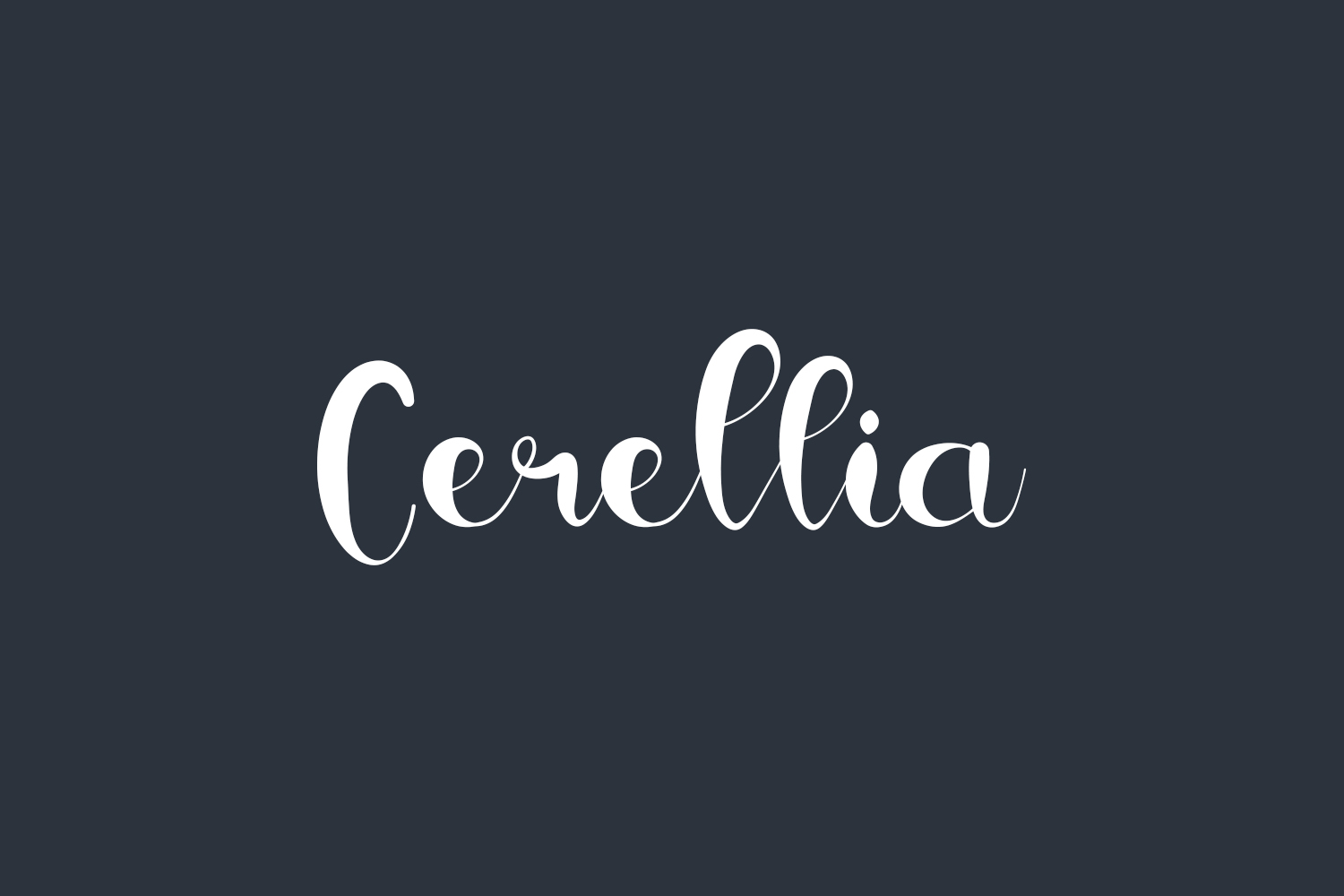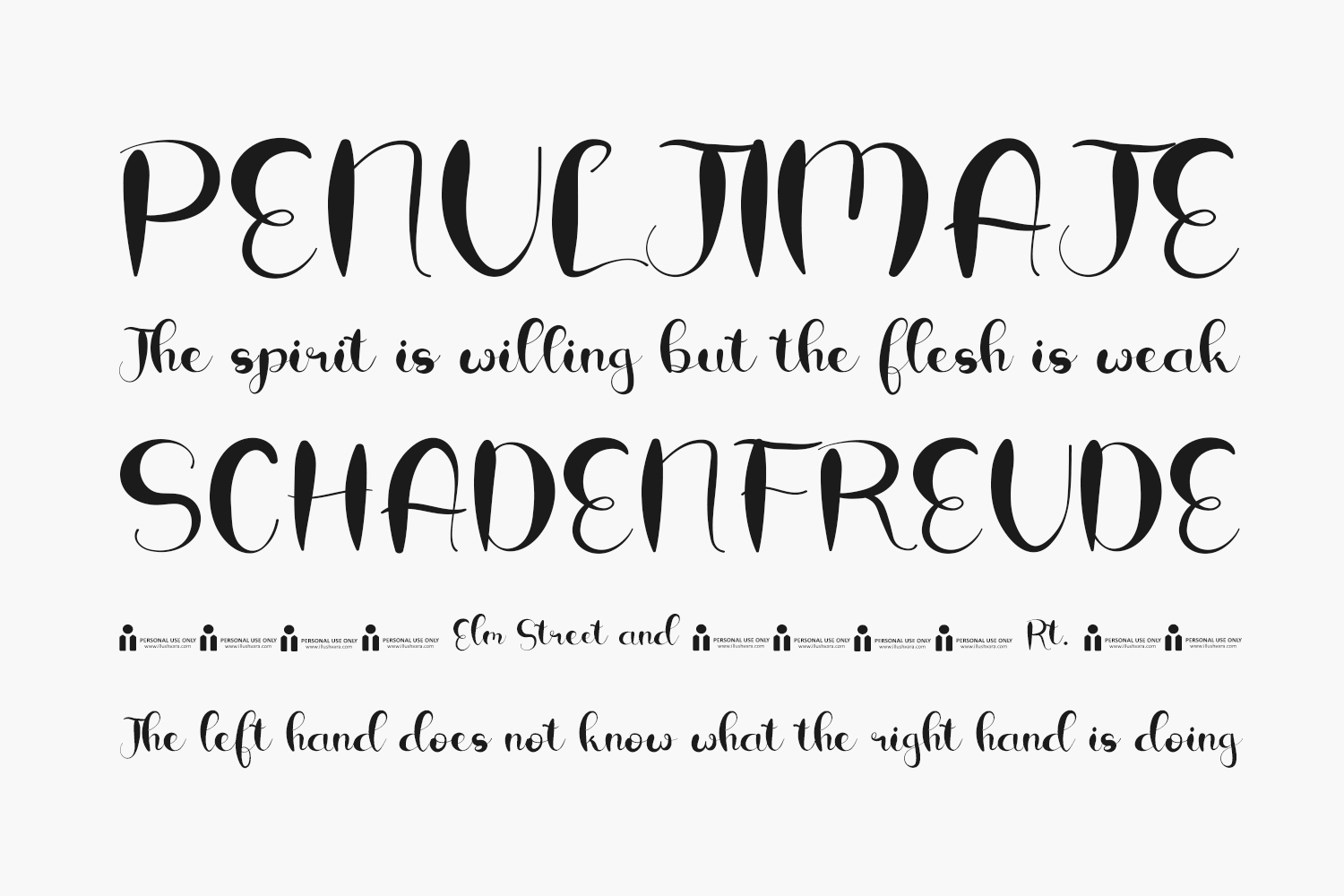
Cerellia Free Font is a bold script font, carefully handcrafted to become a true favorite. Its casual charm makes it appear wonderfully down-to-earth, readable and, ultimately, incredibly versatile. Cerellia Free Font is a demo and free for personal use only. Please purchase the full version for commercial use.